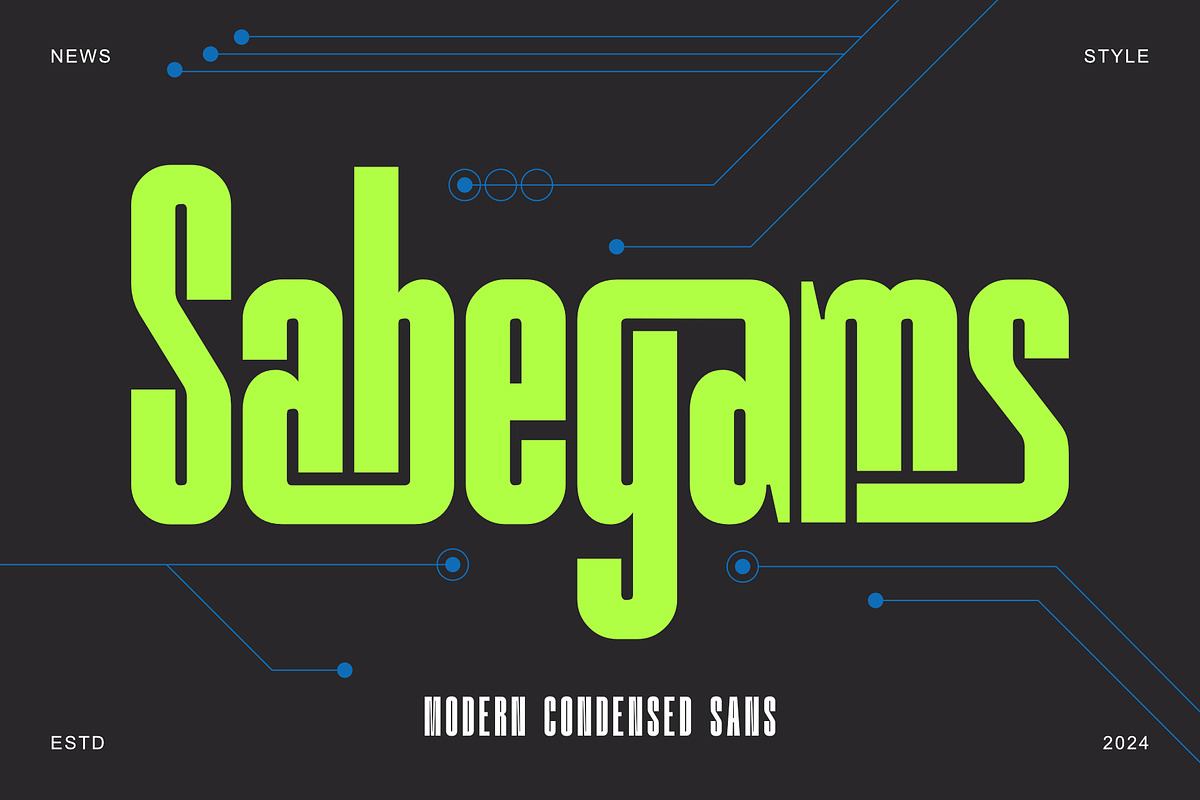
The Sabegams | Modern Condensed Sans Free Download is a sleek and contemporary font that brings a clean, minimalist look to any design. Perfect for modern branding, web design, and editorial projects, this font adds sophistication and style to your work. Please note, for commercial use, a license must be purchased. You can download it for free for testing purposes.
With its narrow letterforms and modern appeal, the Sabegams | Modern Condensed Sans Free Download is ideal for creating sharp, stylish headlines and logos that stand out. Whether you're designing for print, digital media, or social platforms, this font provides clarity and impact with its condensed structure.